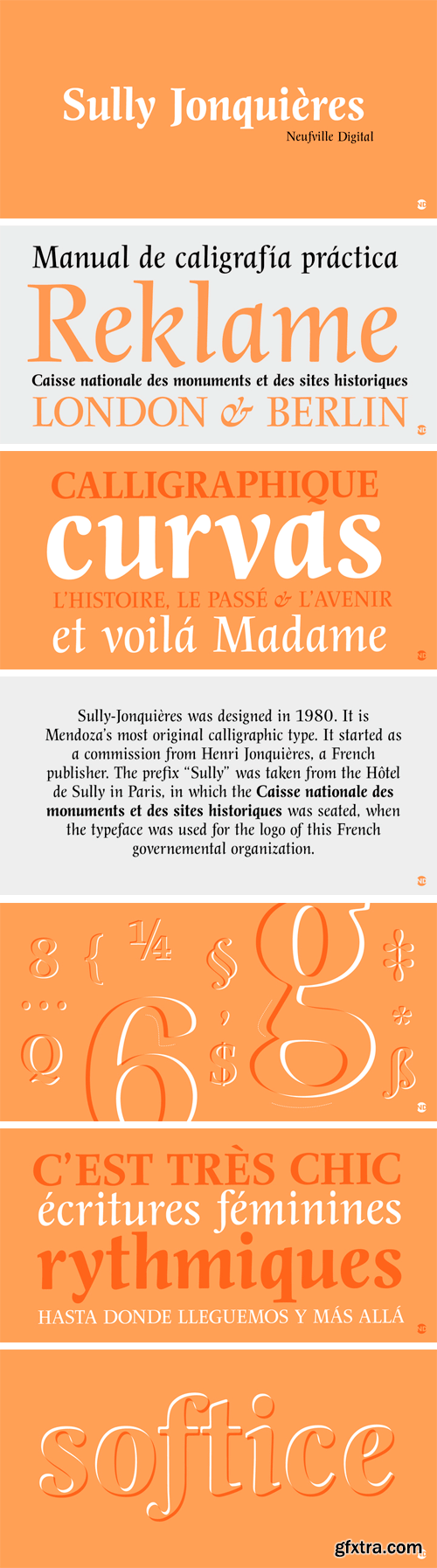
Sully-Jonquières (1980) is Mendoza's most original calligraphic type design. It started as a commission from Henri Jonquières, a French publisher; the prefix 'Sully' was taken from the Hôtel de Sully in Paris, in which the Caisse nationale des monuments et des sites historiques was seated, when the typeface was used for the logo for this French governemental organization.